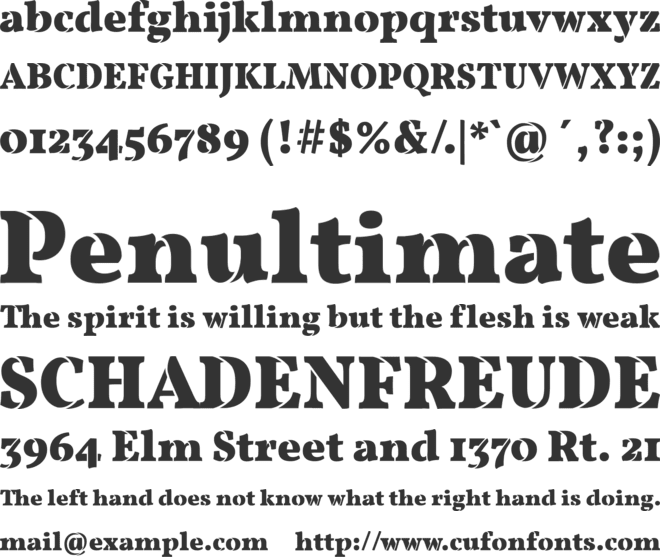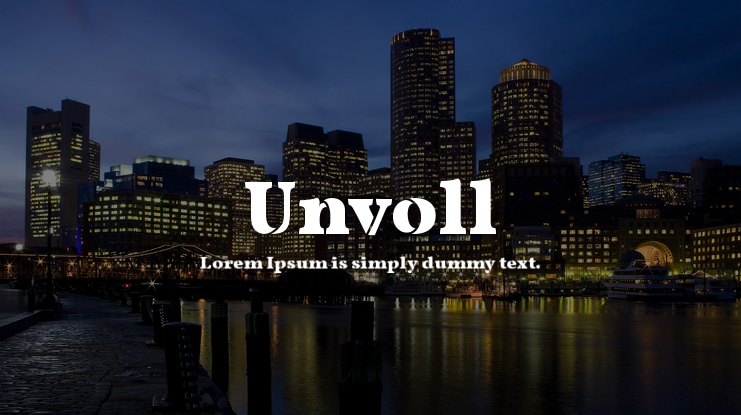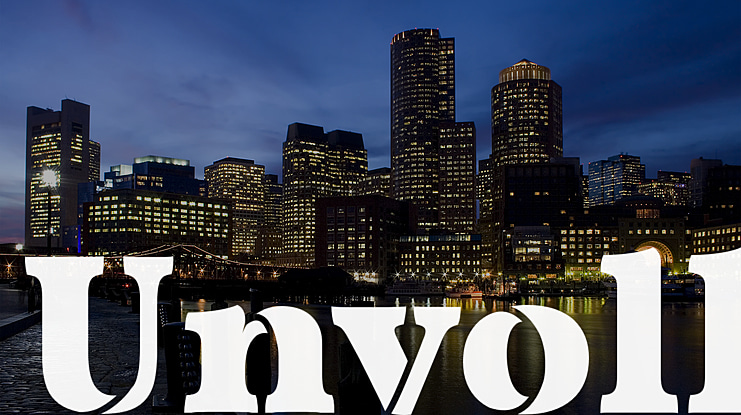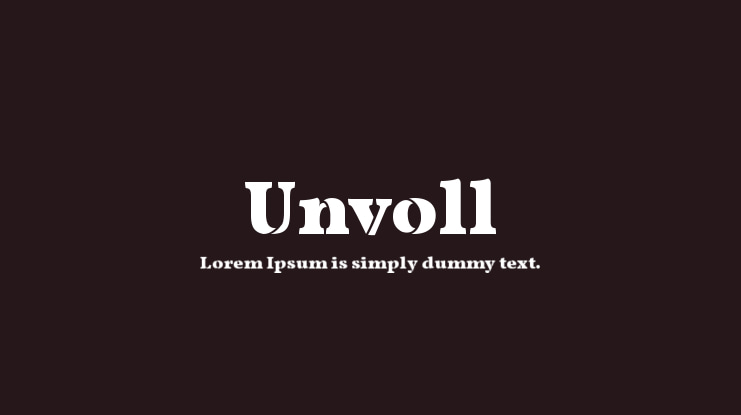
Unvoll Font
Friedrich Althausen
Unvoll is a stencil version of original Volkorn Fonts by Friedrich Althausen (http://friedrichalthausen.de). Volkorn who means "complete" has turned as Unvoll who means "Incomplete". This version is proposed by Laurent VERBEKE, student at ERG, graphics school, Brussels, Belgium for ZigZagAnimal ( http://zigzaganimal.be/)